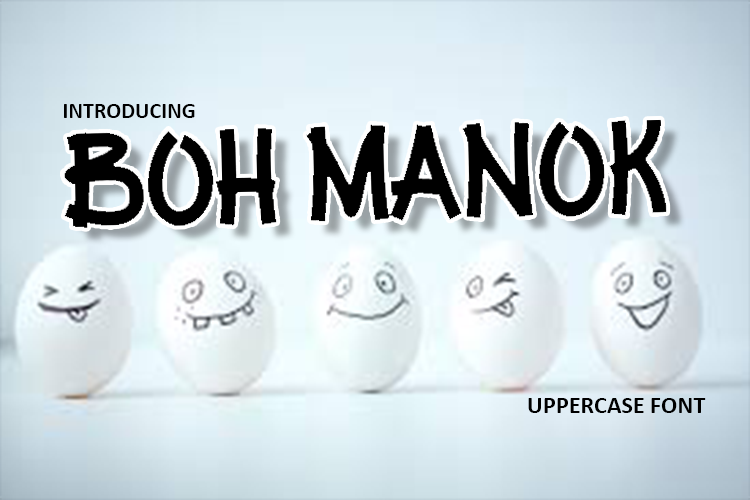
Boh Manok
Boh Manok offers a more upright, gothic, and modern alternative to the conventional sign painter's one stroke. Boh manok provides a completely unique take on a overdone classic with proportions and crossbar heights inspired by the more friendly Chicago style.